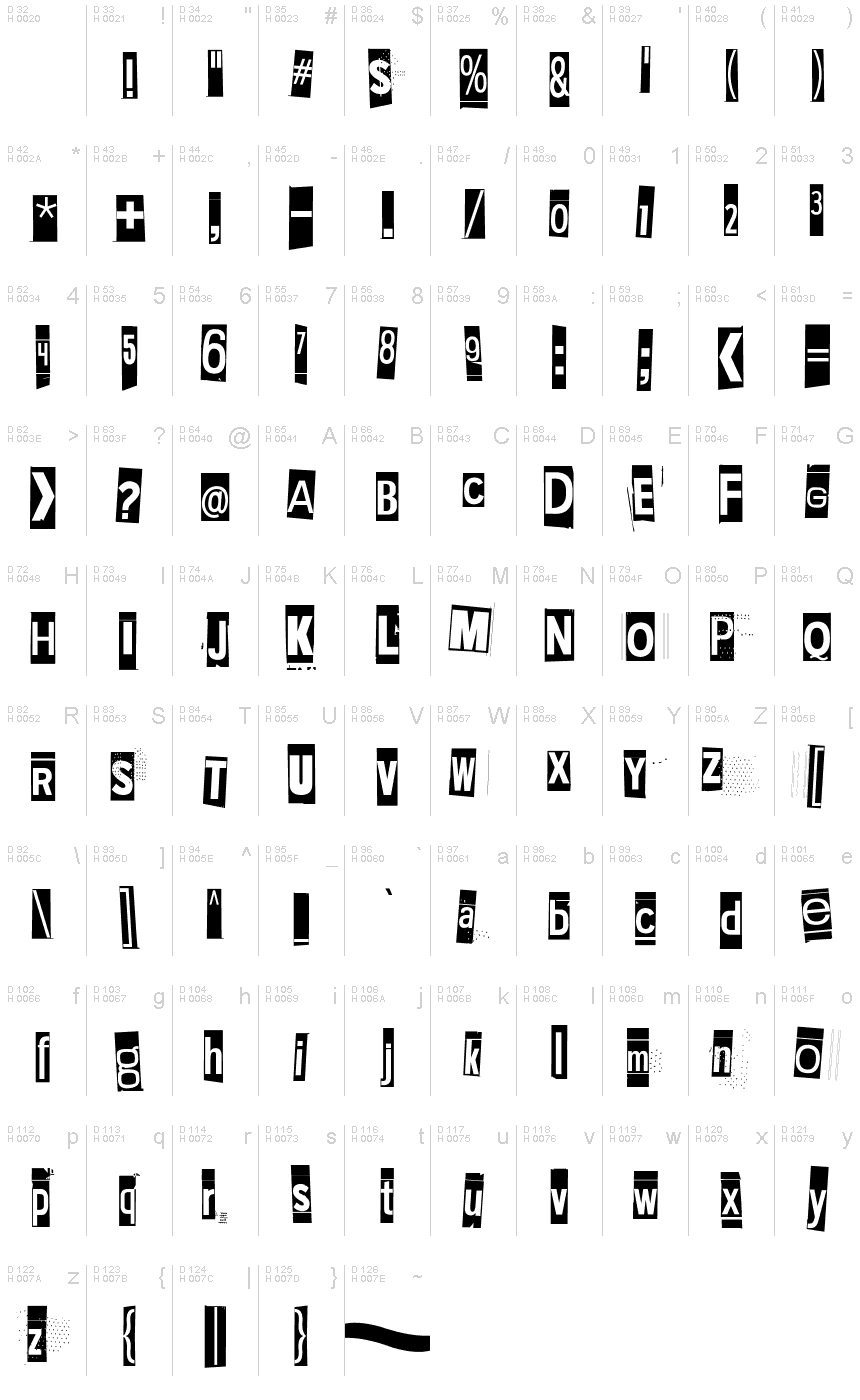
Extraoin Zhurdlyou Anarchy
Looking for a font that will make your projects stand out from the crowd? Look no further than Extraoin Zhurdlyou Anarchy! Designed by junkohanhero, this negative display font is perfect for projects that need a bit of extra edge. With its distorted style and semi-light weight, Extraoin Zhurdlyou Anarchy is sure to catch the eye and leave a lasting impression. Whether you're working on a bold advertising campaign or an avant-garde art project, this font is up to the challenge. So why settle for boring when you can go bold with Extraoin Zhurdlyou Anarchy?